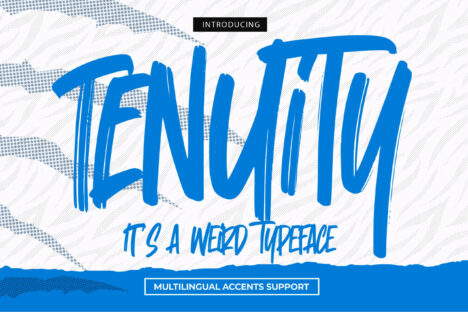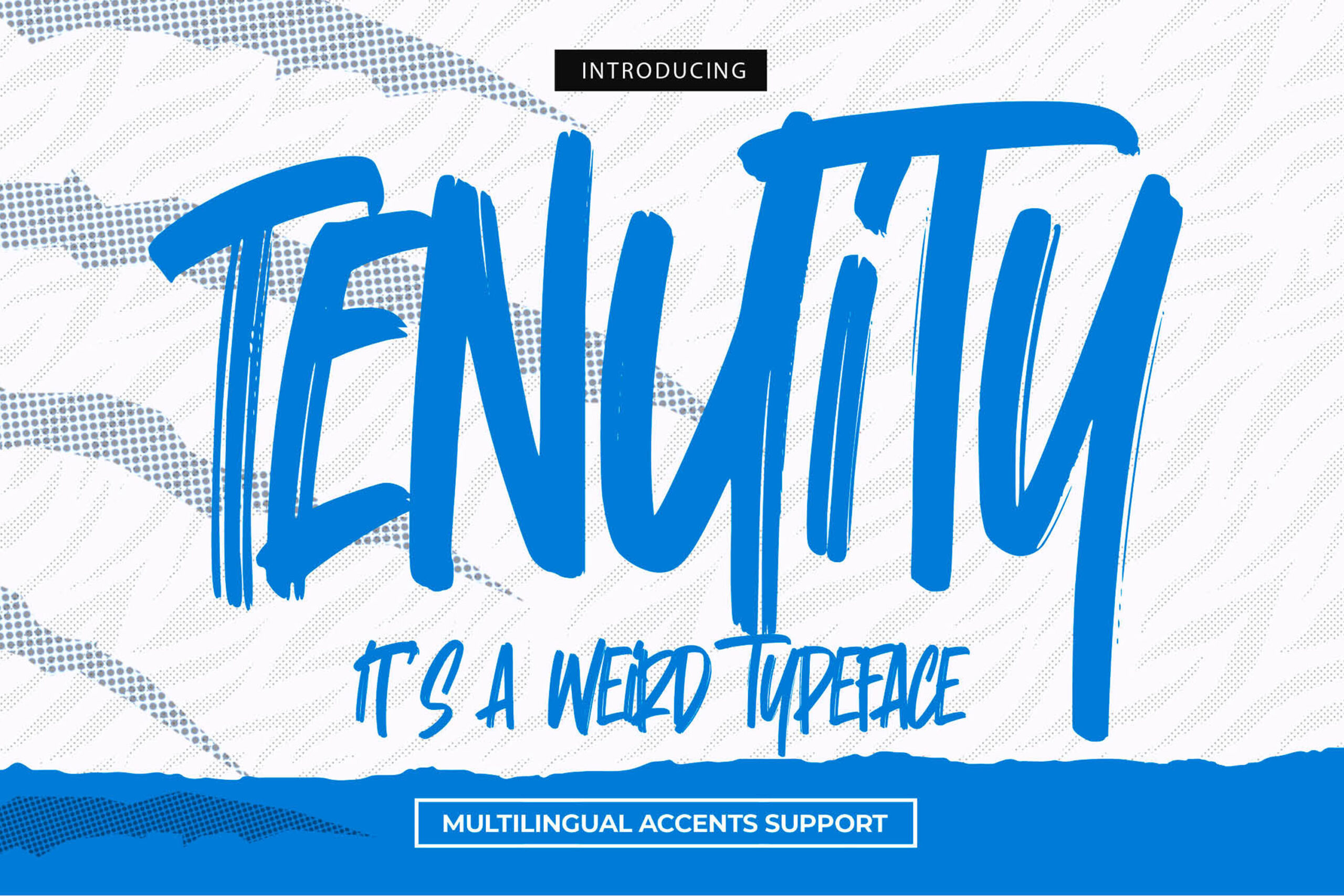
TENUITY – It’s A Weird Typeface , modern style and dramatic movement that is written casually and quickly.
The best for labels , poster, project designs look modern, authentic and fun. It’s perfect for labels, quotes, posters, DIY projects, branding, packaging, greeting cards, websites, photography overlays, signs, scrapbooking, tags and so much more! That is why TENUITY has a brush, and strong characteristic more natural look. You can activate Ligatures and Alternates glyphs OpenType panel.